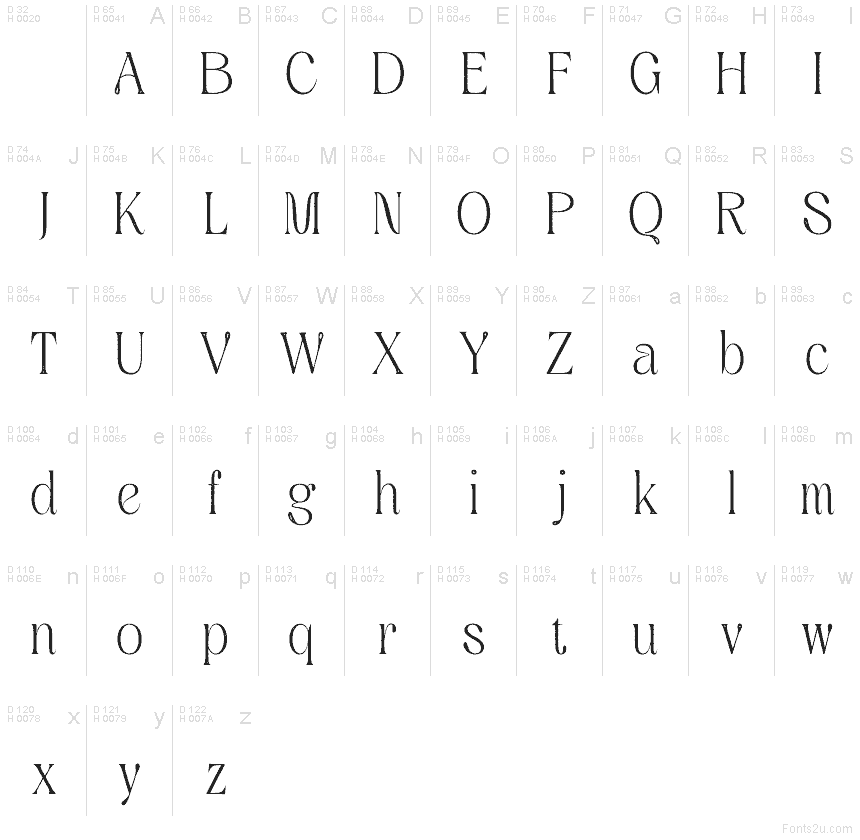
Quenza Stamp Regular Demo
Quenza Stamp font by Craft Supply Co. channels vintage charm with ornamental details and classic elegance. The serif letters appear aged, preserving a historical influence exquisitely collected in this design. Elements like the high contrast between strokes further compliment the visual feel of this free vintage font.
Use it for branding, labeling, packaging, titles, headers, posters, page layouts, printing on clothing items or canvases. Additionally try Quenza Stamp for large-size typography like wall menus in restaurants or decoration signs inside shops.